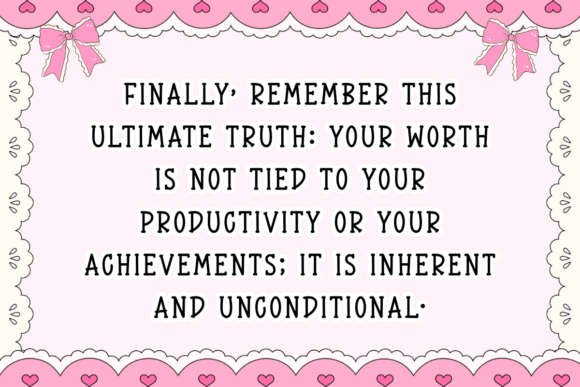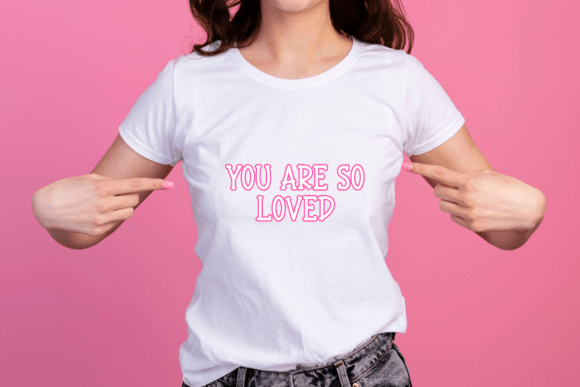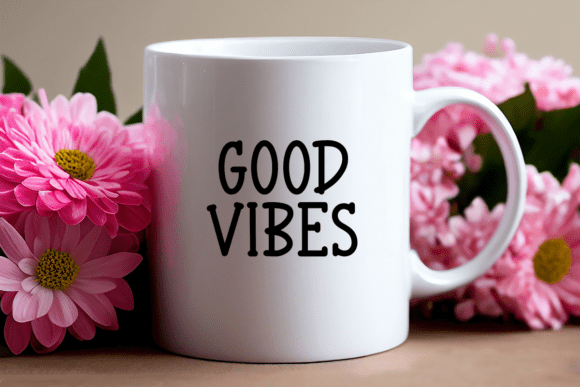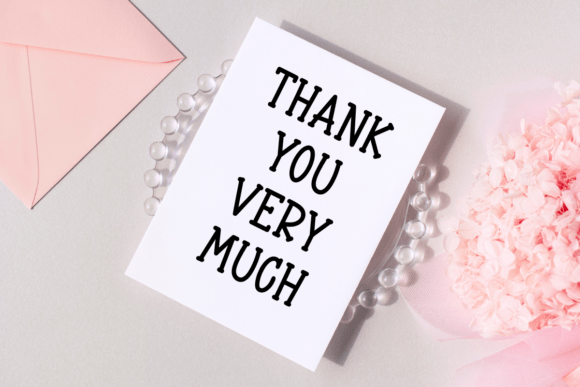
Unleash the Playful Spirit of Design with Barbie Charm Font
Who among us hasn’t felt the rush of creative excitement when faced with a blank canvas? For designers, this moment of pure inspiration can be a catalyst for something truly special. It’s exactly this feeling that inspired the creation of the Barbie Charm Font – a delightful, bubbly slab serif font that radiates pure fun and youthful energy.
Barbie Charm Font is a perfect blend of nostalgia and modern charm, designed to bring a smile to the faces of both children and adults alike. Its unique charm comes from the soft, rounded edges, bouncy baseline, and friendly, cartoon-like proportions that give every letter a lighthearted wobble. This font is an ideal choice for designers looking to add a playful, cute vibe to their projects, making it a valuable addition to any design toolkit.
Barbie Charm Font Key Features
- Font Family: Barbie Charm Font is a sans-serif font family designed to evoke a sense of whimsy and charm.
- Unique Characteristics: Features a distinctive, rounded design with a mix of geometric and organic shapes, perfect for creating a playful and feminine aesthetic.
Barbie Charm Font Review
Overall, I’m really impressed with the Barbie Charm Font. The font is designed to evoke a sense of nostalgia and playfulness, which it achieves beautifully.
- ✨ The font’s unique and whimsical design makes it perfect for creative projects and branding.
- ✨ The font’s bold and colorful style is great for capturing attention and making a statement.
- ✨ The font’s versatility makes it suitable for a wide range of applications, from digital to print.
However, I do have a few concerns about the font’s limitations.
- ⚠️ The font may be too over-the-top for some users, which could make it difficult to use in more conservative or professional settings.
- ⚠️ The font’s bold style can make it difficult to read in certain situations, such as at small font sizes or in low-contrast environments.
Overall, I think the Barbie Charm Font is a great addition to any designer’s toolkit. With its unique design and versatility, it’s perfect for creative projects and branding. However, it may not be suitable for every situation, so be sure to use it thoughtfully.
The Barbie Charm Font is perfect for:
- Creating feminine and playful designs.
- Adding a touch of whimsy to your branding.
- Designing invitations and party decorations.
Remember to use the font in moderation to avoid overwhelming your design.